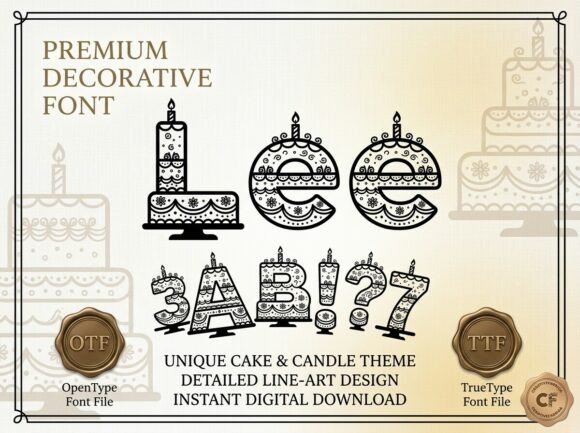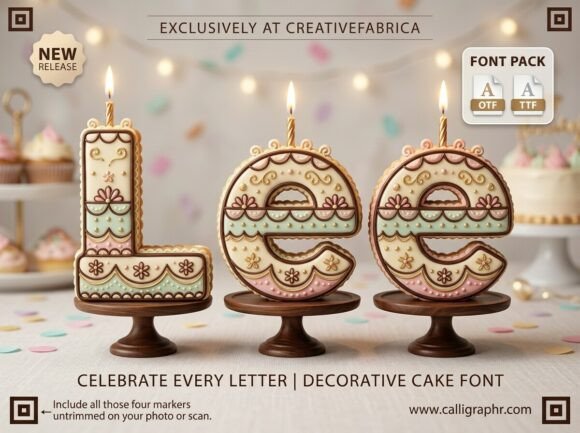
Introduction to Lee Font
Lee: The Decorative Candle-Cake Alphabet Font Make every design a milestone with Lee, a whimsical display font where every letter is a tiered birthday cake.
Each character is meticulously detailed with intricate frosting patterns, delicate โ€œpiping,โ€ and a lit candle on top, all sitting on a classic cake stand Featuring clean, high-quality vector lines, Lee is the perfect choice for personalized birthday invitations, bakery branding, celebratory social media graphics, and festive party decor.